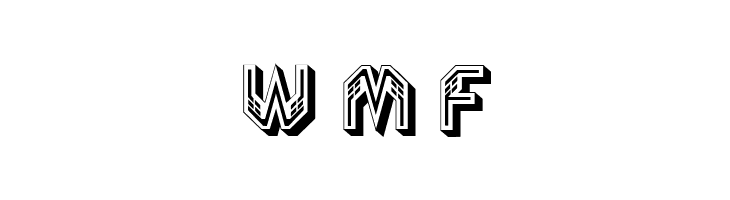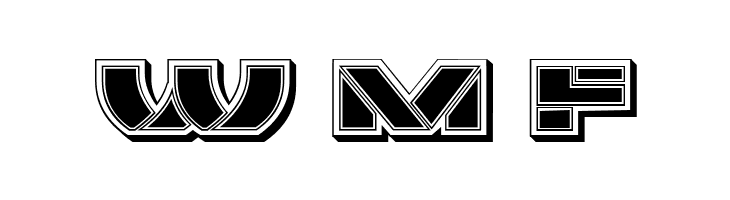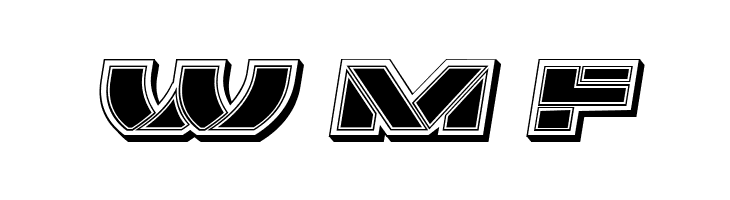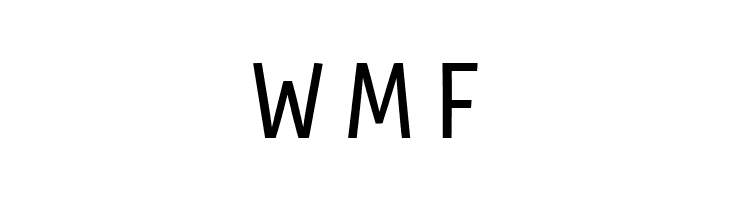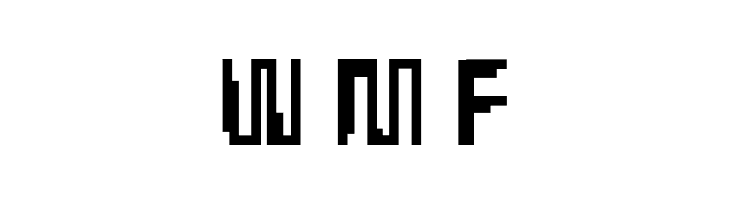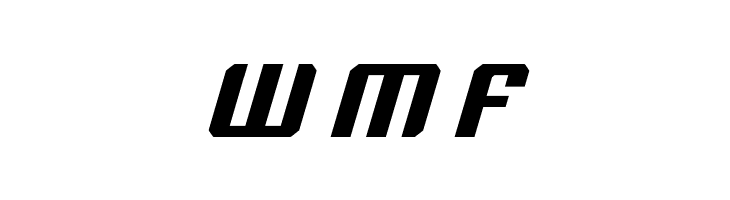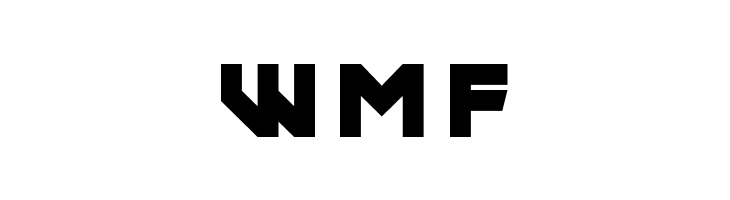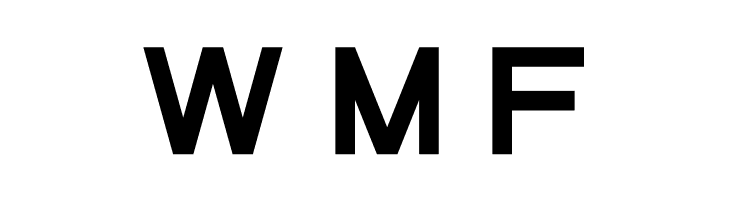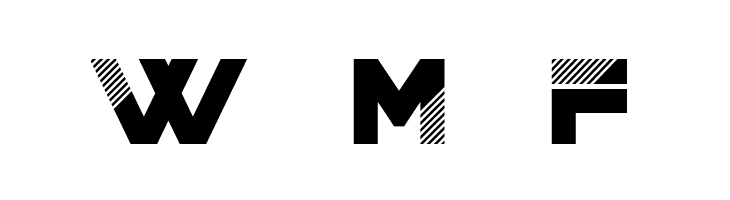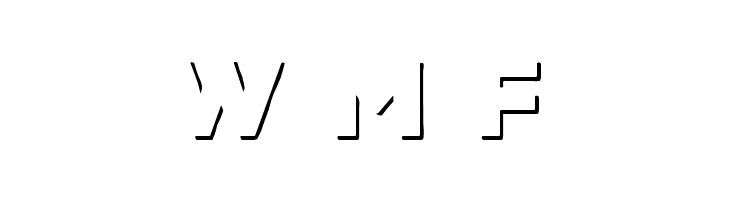
• Triton Filled Regular
A bold, futuristic font with a 3D effect and geometric design.
• Striptease Regular
A bold, decorative font with a three-dimensional, geometric design and retro-modern appeal.
• Striptease Book Regular
A geometric, layered font with a modern and artistic style.
• Strict Regular
A bold, geometric font with a three-dimensional shadow effect, ideal for impactful designs.
• Eccentric Regular
A bold, decorative font with a three-dimensional effect and geometric design.
• Eccentric Italic
A bold, decorative font with a three-dimensional effect and italic slant.
• Salad Interlock Trial Regular
A bold, slightly condensed modern font with geometric influences.
• Comickes Stripe
A bold, striped decorative font with a playful and dynamic style.
• Jungle Tribe Demo
A bold, tribal-inspired font with sharp, angular edges and brush-like patterns.
• Army Tribute Demo
A geometric, military-inspired font with clean lines and structured forms.
• Triumphal Demo
A bold, geometric sans-serif font with a modern and clean aesthetic.
• Tetris_Hollow
A bold, geometric font with a retro, pixelated design.
• FitriaDemo
A bold, decorative font with geometric accents and a modern flair.
• Metricas
A bold, angular font with a dynamic, forward-leaning style.
• Our Friend Electric
• Striker
A modern, geometric font with bold, angular characters.
• Altone Trial Regular
A modern, geometric sans-serif font with clean lines and balanced spacing.
• HandoTrial-Black
A bold, modern font with thick, uniform strokes and geometric shapes.
• ModecoTrial-ExtraLight
A modern, geometric sans-serif font with a clean and minimalistic design.
• ModecoTrial-Regular
A modern, geometric sans-serif font with balanced proportions and a sleek design.
• HighmanTrial-Regular
A bold, modern sans-serif font with strong, geometric lines.
• Fleshy Stripes Regular